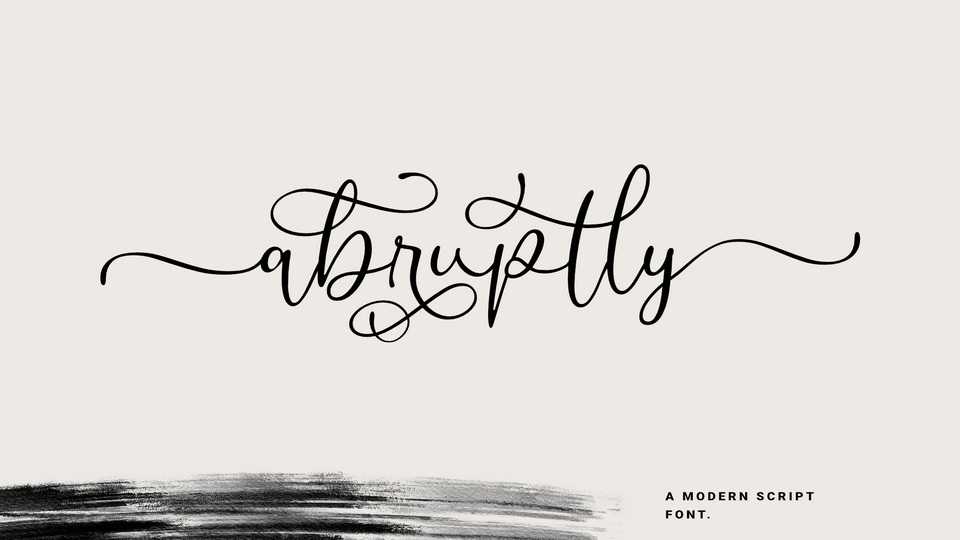
Download Abruptly font, a lovely handwritten typeface. Abruptly font is perfect for weddings, greeting cards, thank you cards, quotes, branding, logos, t-shirts and others.
Designer: Niskala Huruf